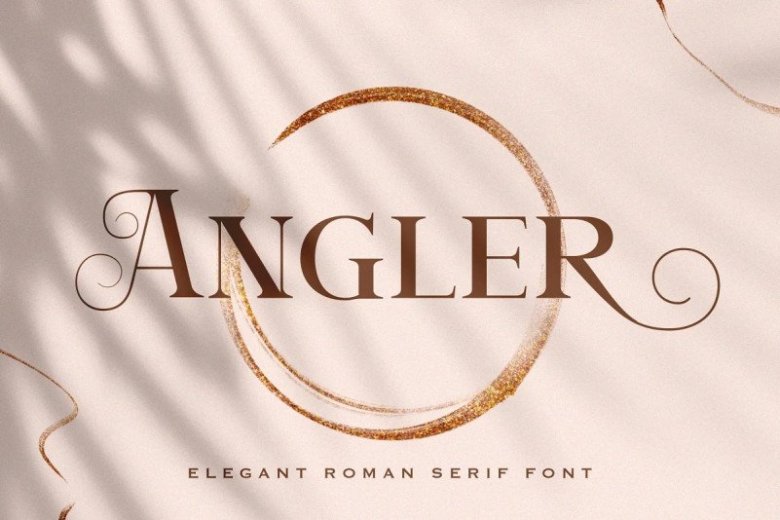
Angler Font
Angler Serif Font with modern style. An elegant, unique font that uses alternates to smoothly link letters. It’s designed and shared by StringLabs. It can easily be matched to an incredibly large set of projects, so add it to your creative ideas and notice how it makes them stand out!